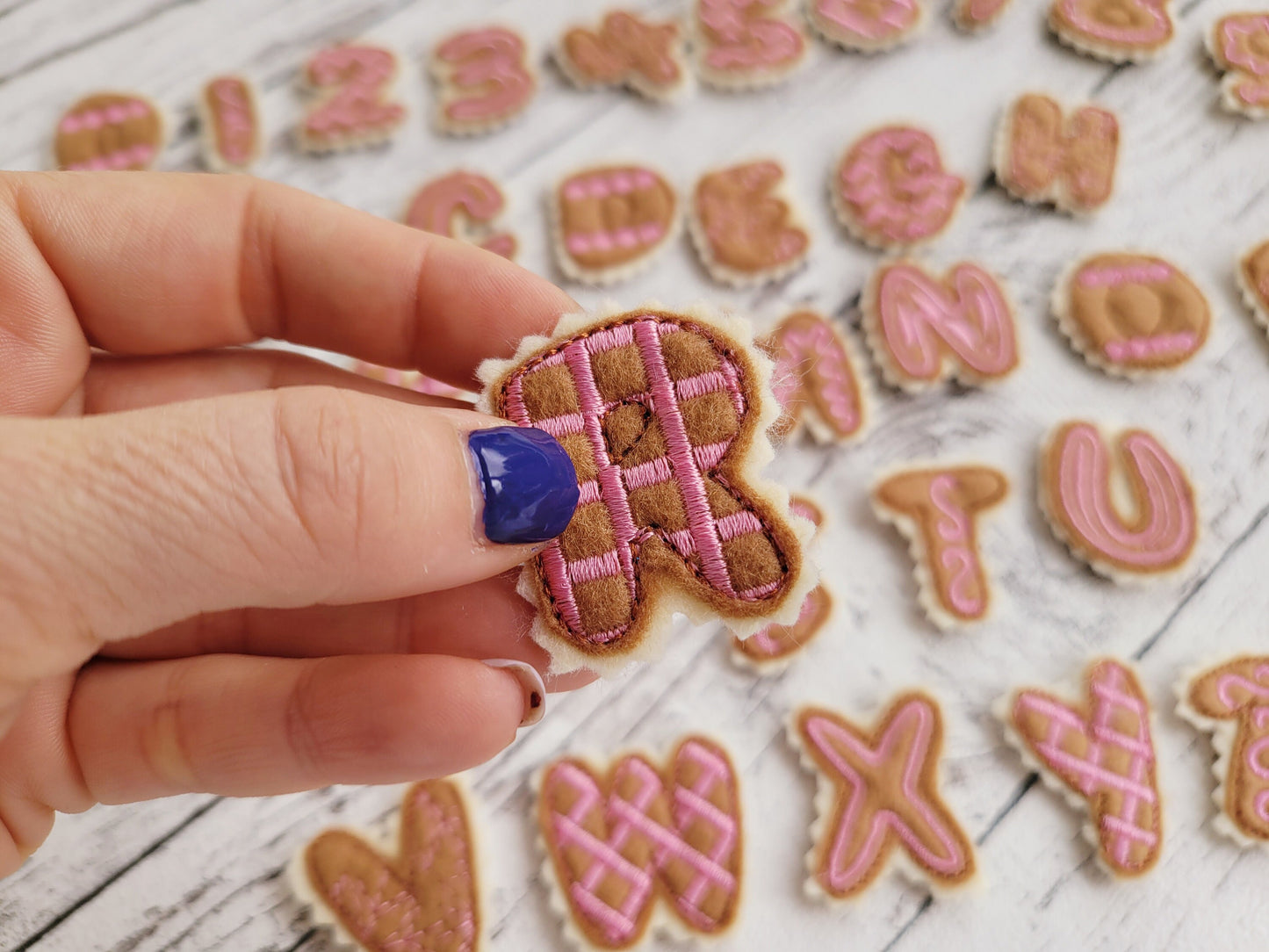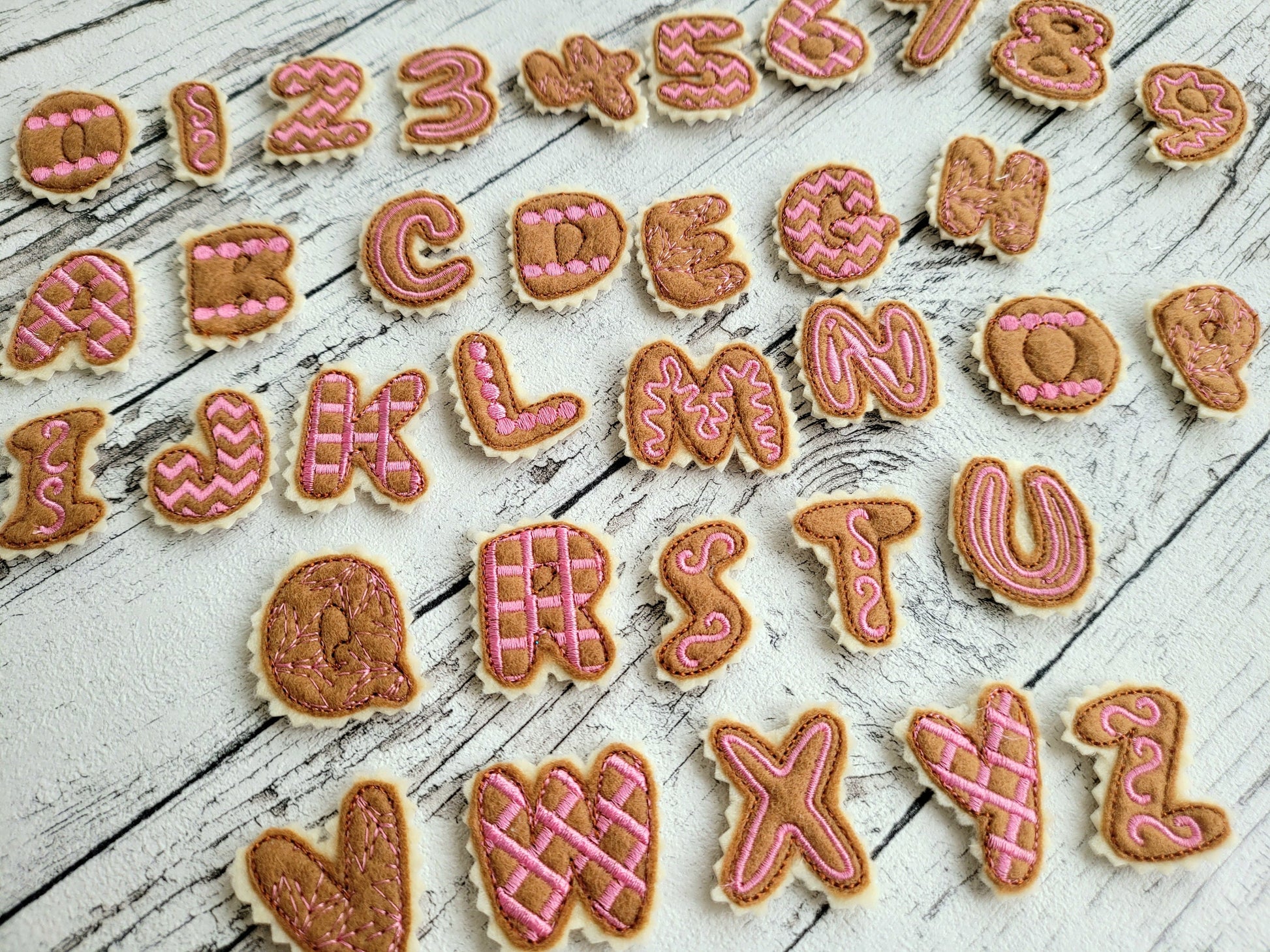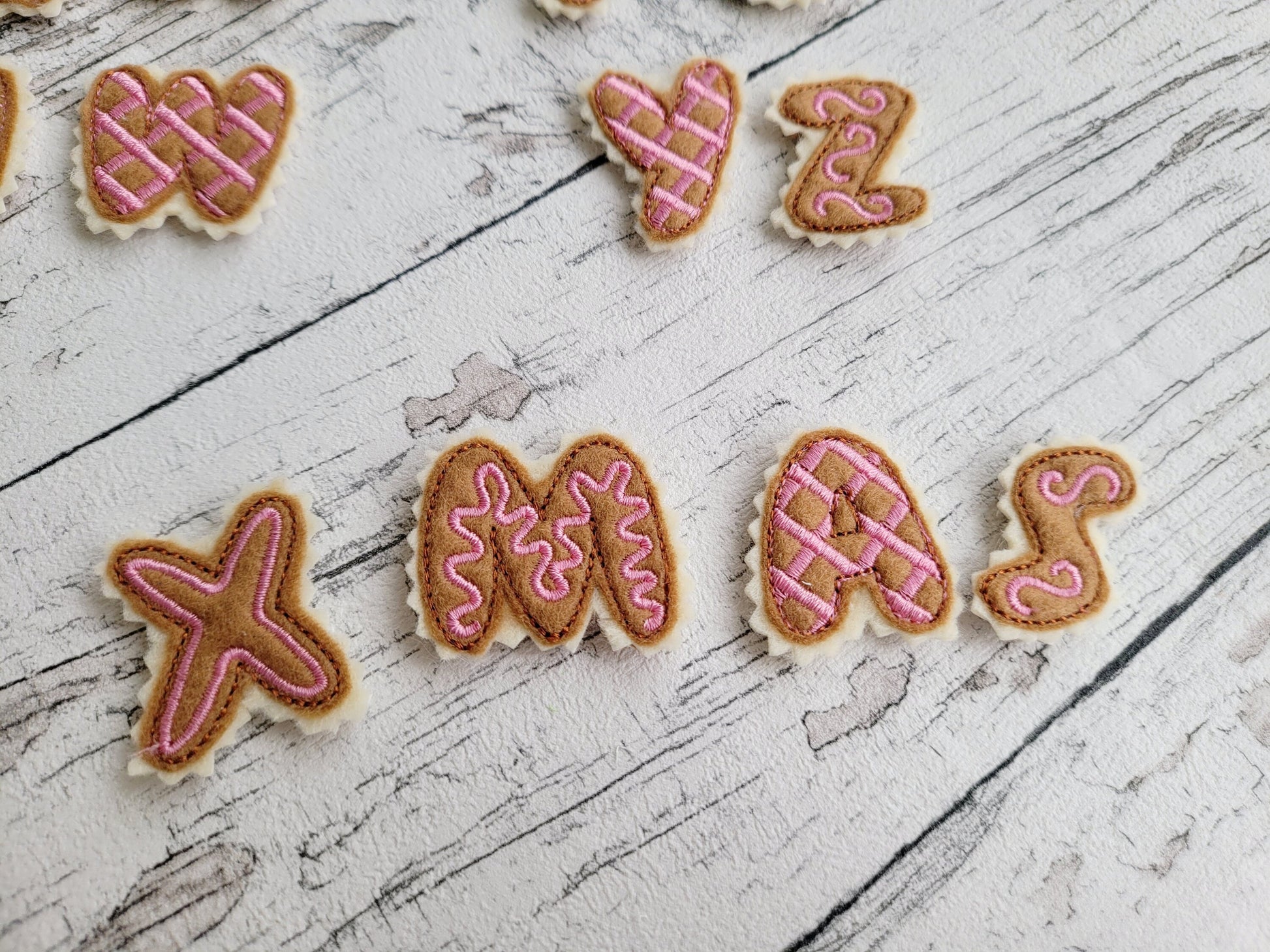
Gingerbread Man Cookie Font ITH
Letters A to Z and numbers 0 to 9 shaped like gingerbread cookies, made in the hoop as felt pieces. Seven sizes: 1.3, 1.5, 1.9, 2, 2.5, 3 and 3.5 inches.
- Gingerbread cookie letters A to Z, in the hoop
- Numbers 0 to 9
- 7 sizes, 1.3 to 3.5 in